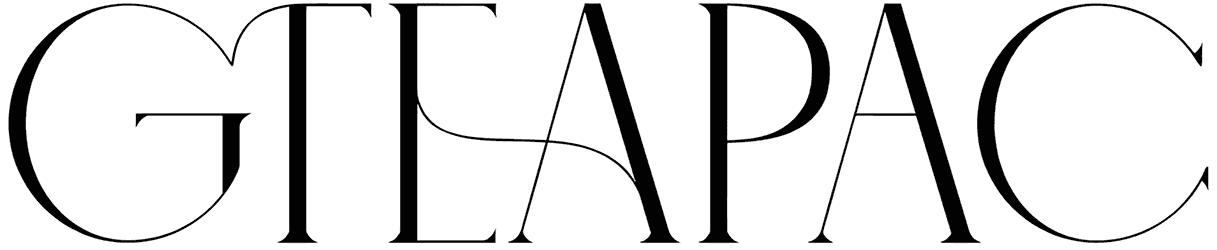
Gteapac Font
If you are in the middle of a critical project and there is no room for making any mistakes, then you will definitely require a marvelous ligature font, the same as the Gteapac.